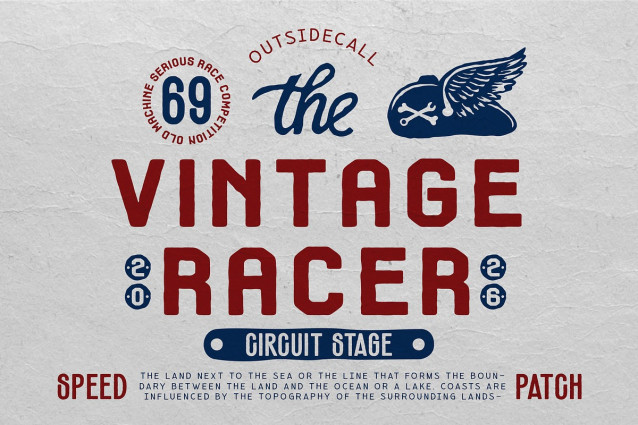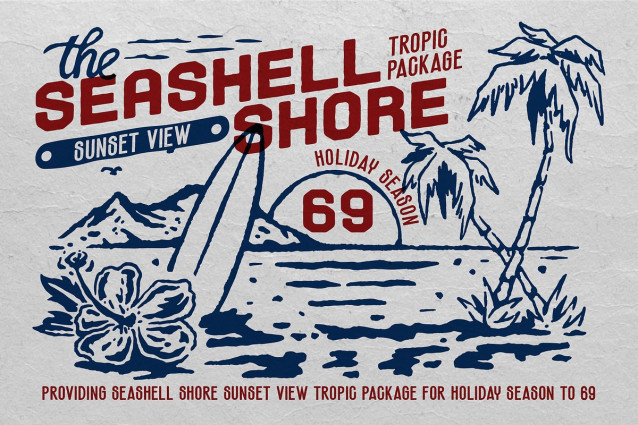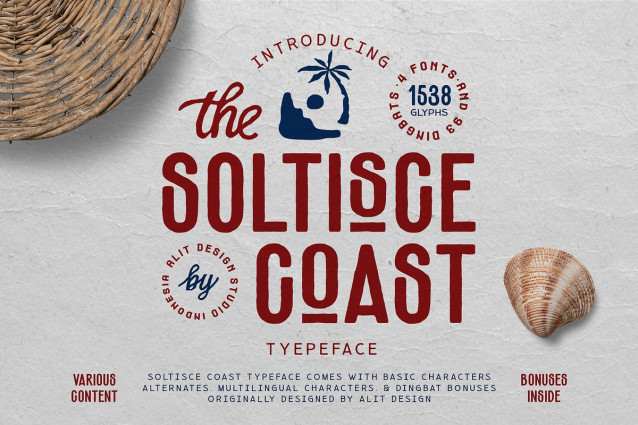
Soltisce Coast High Font
Soltisce Coast High Font a typeface that seamlessly blends the laid-back vibes of a tropical island with the rugged grit of a custom motorcycle garage.
Designed with an authentic hand-stamped texture, Soltisce Coast is not just a font—it is a complete design toolkit. Whether you are branding a beach club in Bali, designing merchandise for a surf shop, or creating a logo for a custom mechanic, this typeface brings an instant heritage feel that usually takes hours to illustrate by hand.